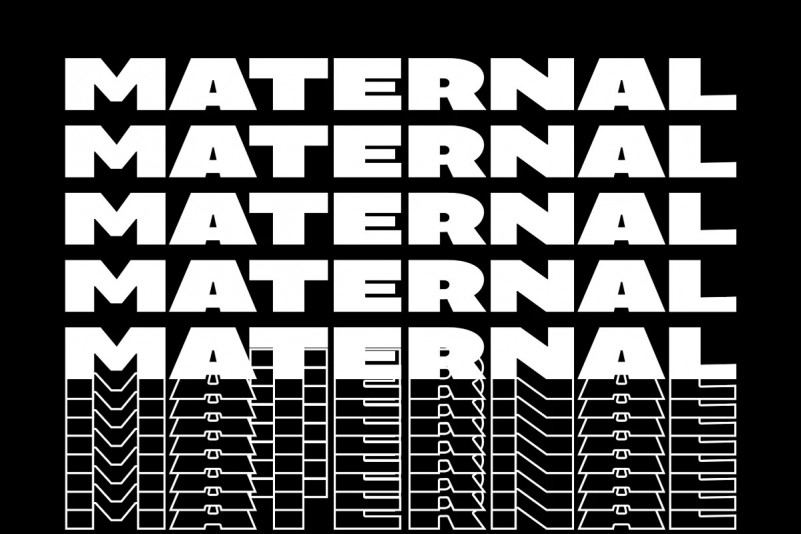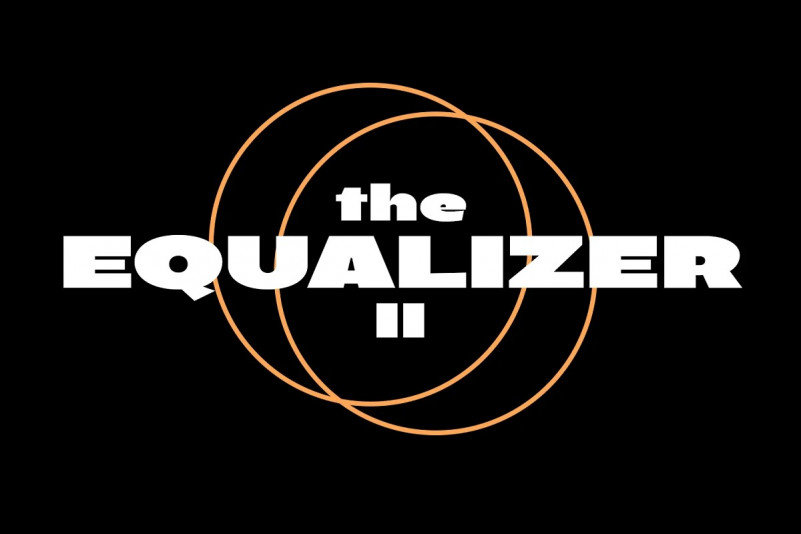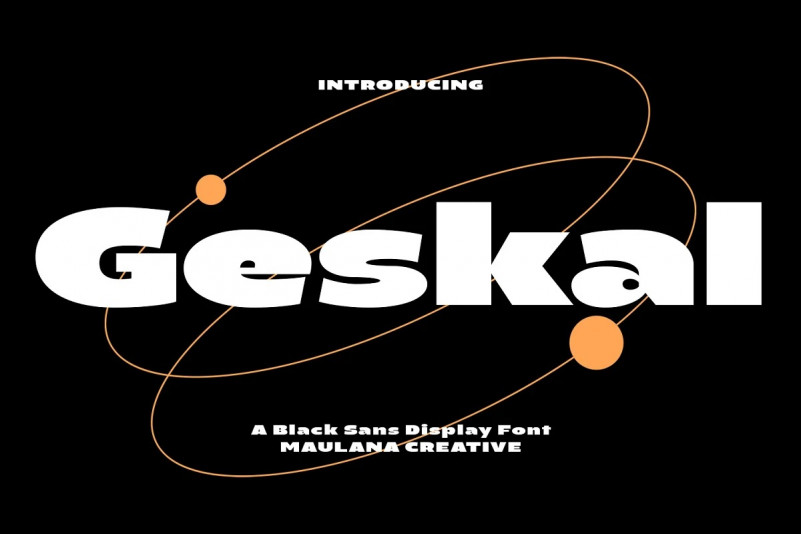
Geskal Font
Grab our new font, Geskal Sans Serif Font is a wide strong sans display font. With bold stroke, fun character with a bit of ligatures. To give you an extra creative work.
Geskal font support multilingual more than 100+ language. This font is good for logo design, Social media, Movie Titles, Books Titles, a short text even a long text letter and good for your secondary text font with script. Make a stunning work with Geskal font.